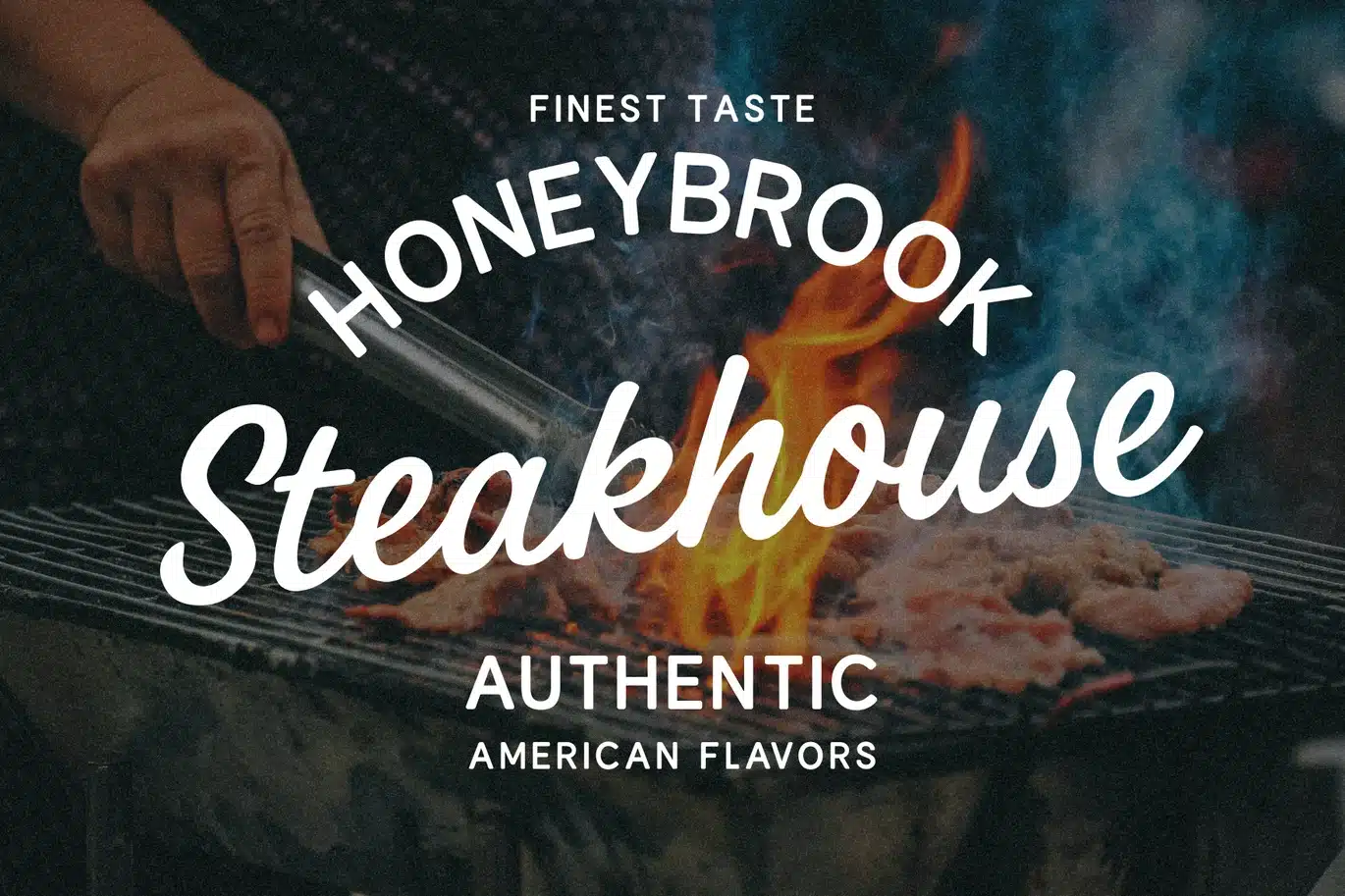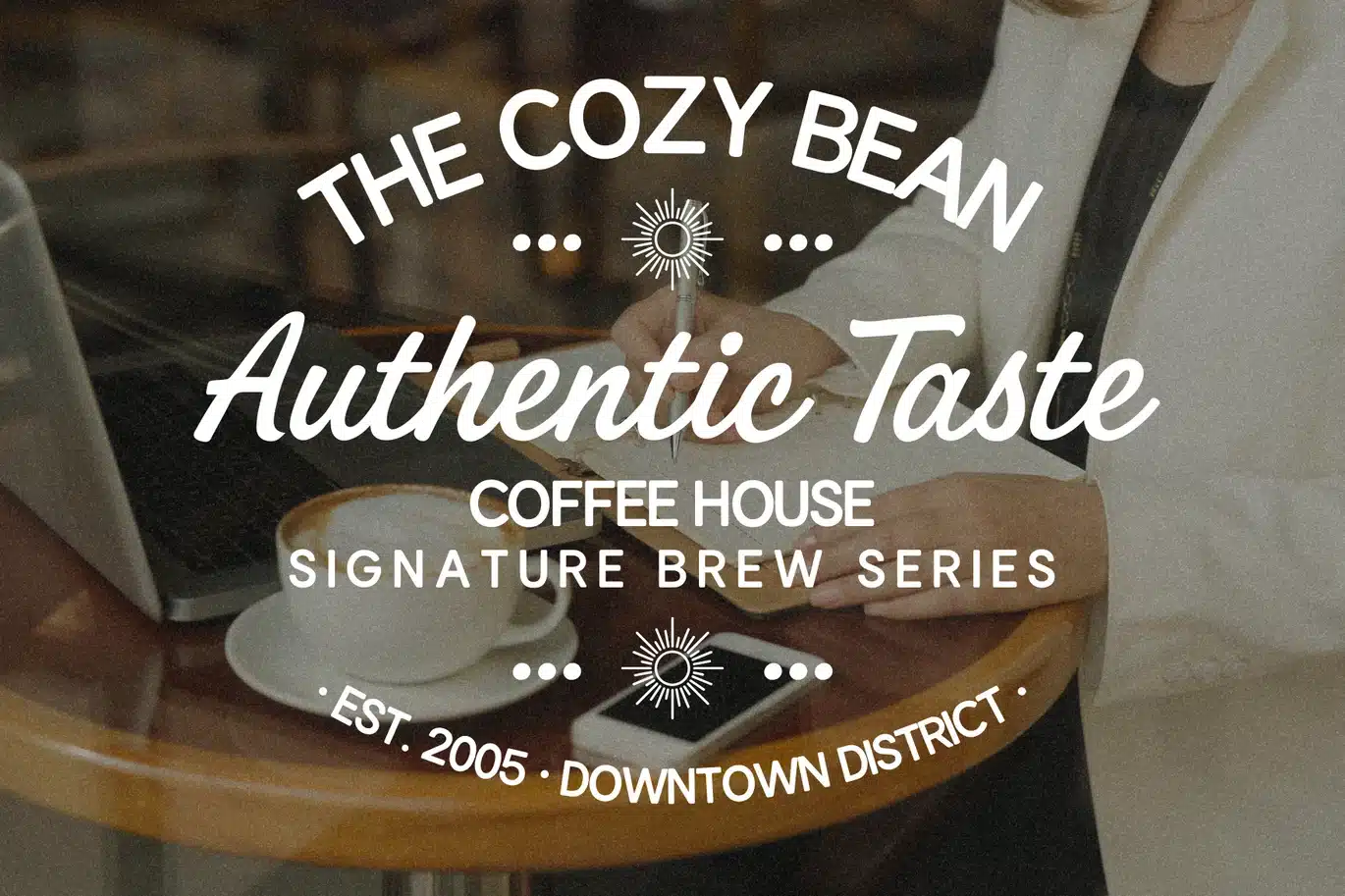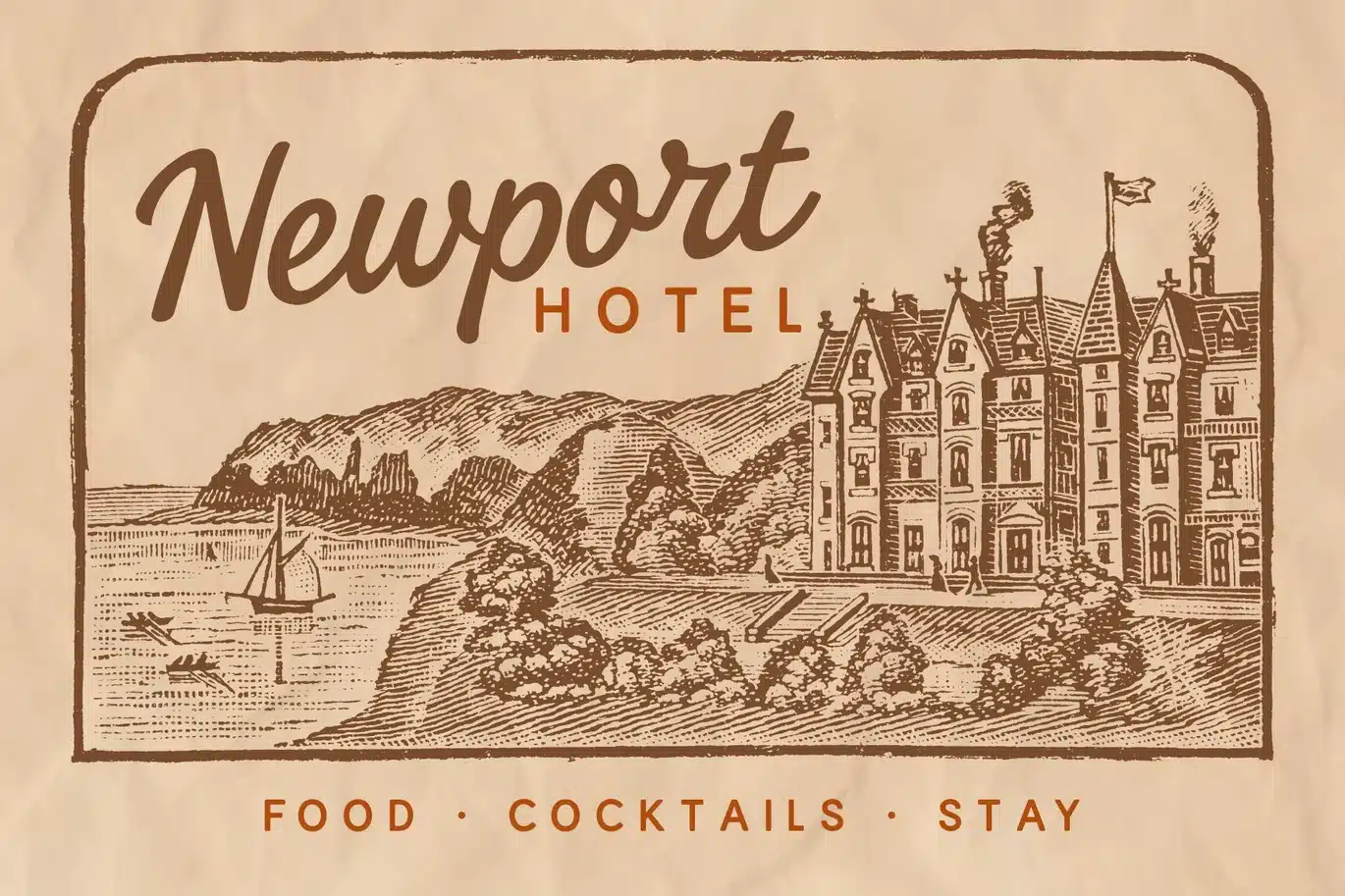
Tropica Marisol – Duo Typeface Font
Tropica Marisol is a versatile font duo that combines a retro script with a clean modern sans. Inspired by tropical aesthetics and vintage signage, this typeface is ideal for branding, packaging, editorial layouts, signage, and social media graphics.
Features
- Duo Typeface: Script + Sans
- Retro-inspired with a timeless tropical feel
- Perfect for logos, cafés, restaurants, hotels, and lifestyle projects
- Designed for seamless pairing between script and sans
- Includes uppercase, lowercase, numbers, punctuation, and multilingual support
Suitable For
- Branding and Logo Design
- Café, Restaurant, and Bar Identity
- Retro Signage and Posters
- Product Packaging and Labels
- Social Media and Lifestyle Content